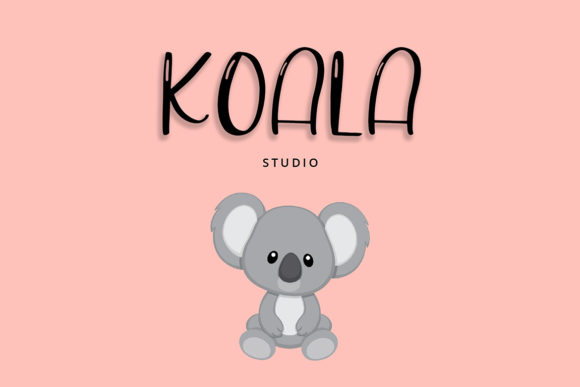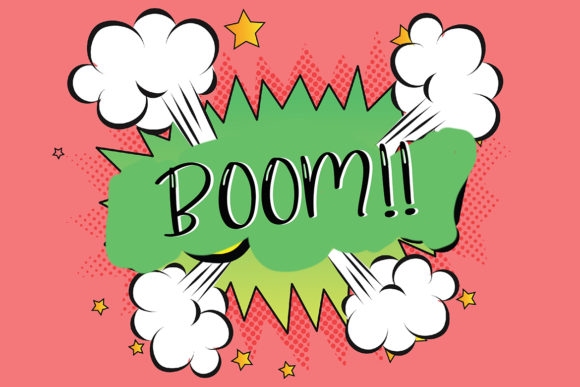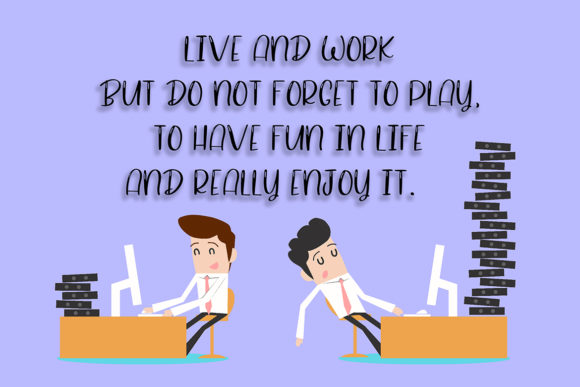
Introduction to Purgandi Font
Purgandi embodies fun, playfulness and authenticity.
This display font will appeal to a wide range of crafty ideas, from letterheads and titles, to stationery and more .
Purgandi Font offers exceptional quality and versatility, making it a valuable addition to your design toolkit. Whether you’re creating for personal projects or commercial use, Purgandi Font delivers professional results.